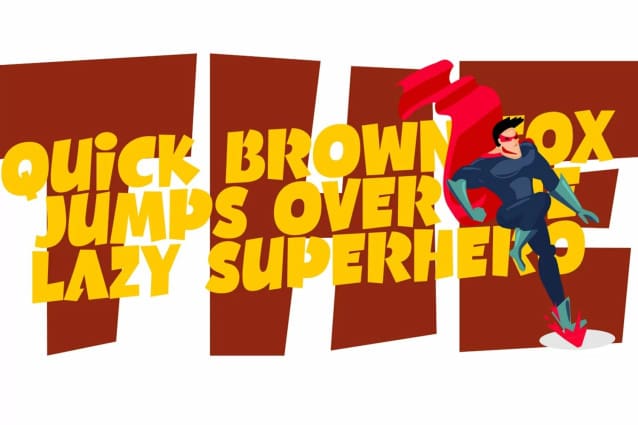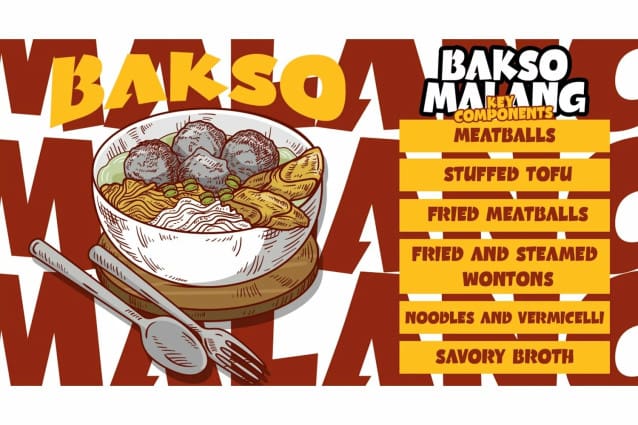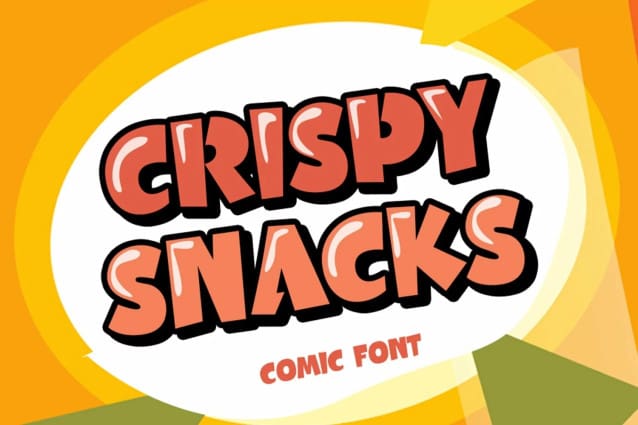
Crispy Snack Font
Crispy Snack Font,  that contain luppercase, symbol, and also support multi language. There’s a lot ligatures in this font. This Font also comes with ligatures, alternates and many more. this font suitable for fashion, branding, catalog and other design what you want.